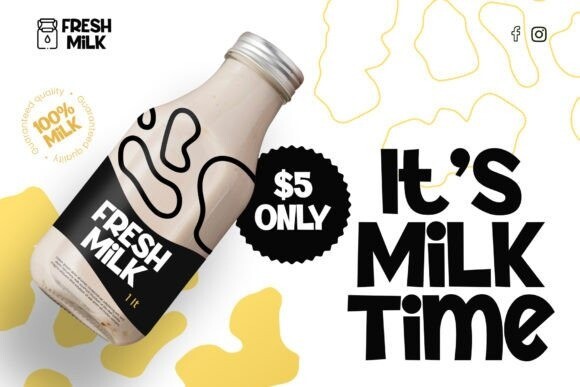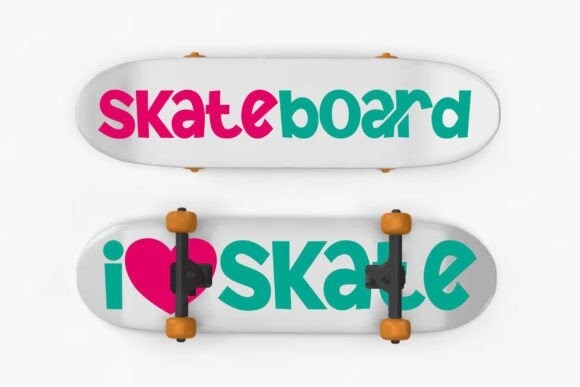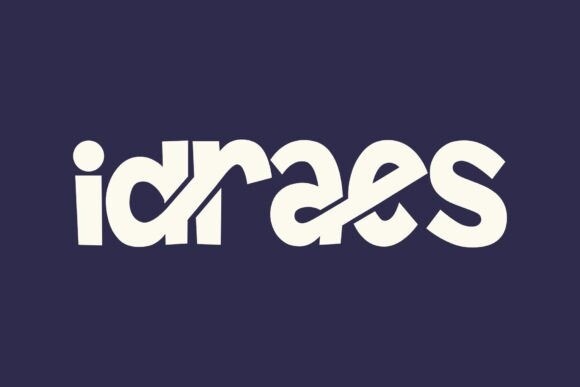
Idraes Font
Designer: Sealoung
Idraes Font is a unique bold sans serif typeface that is designed to leave a bold, unforgettable mark on any design. With its strong, clean lines, Idreas delivers a modern and eye-catching presence, perfect for various creative projects.